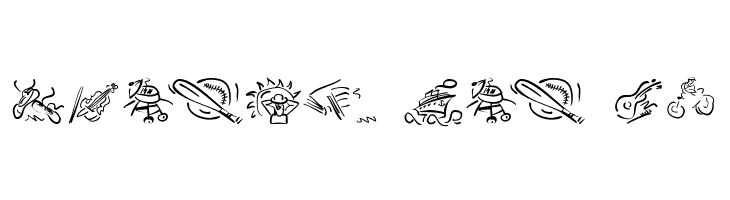
Folk-solid Font
A bold, solid font with a vintage yet modern appeal, ideal for impactful designs.
Folk-shadow Font
A bold, playful font with a shadow effect, perfect for eye-catching designs.
Mangalia Font
Artistic manga-style illustrations form each character.
Folk sketches Font
A hand-drawn, sketch-style font with a playful and artistic appearance.
SketchesByDuerer Font
A geometric serif font inspired by classical design, featuring bold strokes and precise proportions.
colombo sketches Font
A playful, hand-drawn font with a bold, rounded style and informal charm.
M-sKetches Font
A whimsical, sketch-like font with unique, artistic character designs.
boncu sketches Font
A playful, hand-drawn font with bold, rounded letters and a whimsical style.
sketches Bold Font
A bold, sketch-style font with a playful, hand-drawn appearance.
Faces Font
Illustrative, face-themed decorative display font.
MTF i heart Sketches Font
A whimsical, love-themed font with hand-drawn sketches and playful elements.
Birds-Relaunch Font
A collection of whimsical bird illustrations in various playful styles.
PictoGramma-Sketches Font
Hand-sketched pictogram font with abstract icons in square frames.
SketchesSelection Font
Hand-drawn, sketch-style decorative font with playful character illustrations.
SketchedBats Font
A collection of whimsical sketched illustrations in place of traditional characters.
SketchesByDuerer-Inverse Font
A decorative and geometric font with historical artistic influences.
SketchesInTypoasis Font
A whimsical, abstract font combining typography with artistic doodles.
Mirobattz Font
A decorative and abstract font with playful, artistic symbols.
KarlasNrThree Font